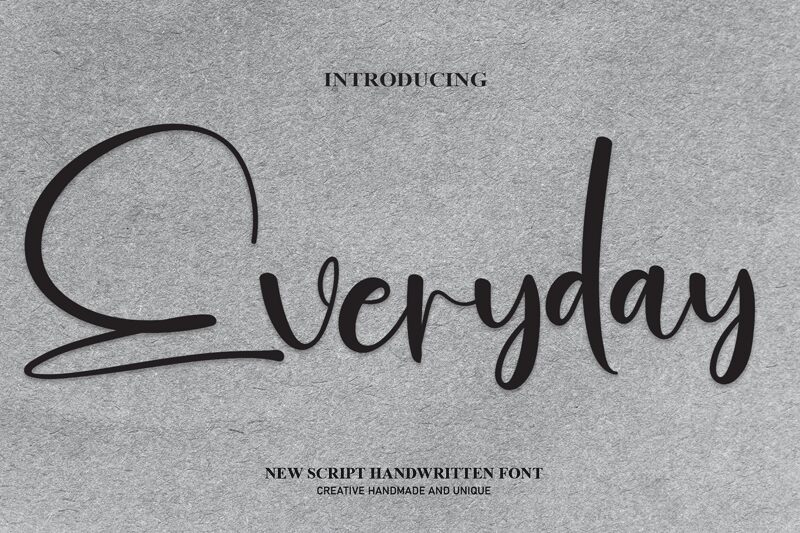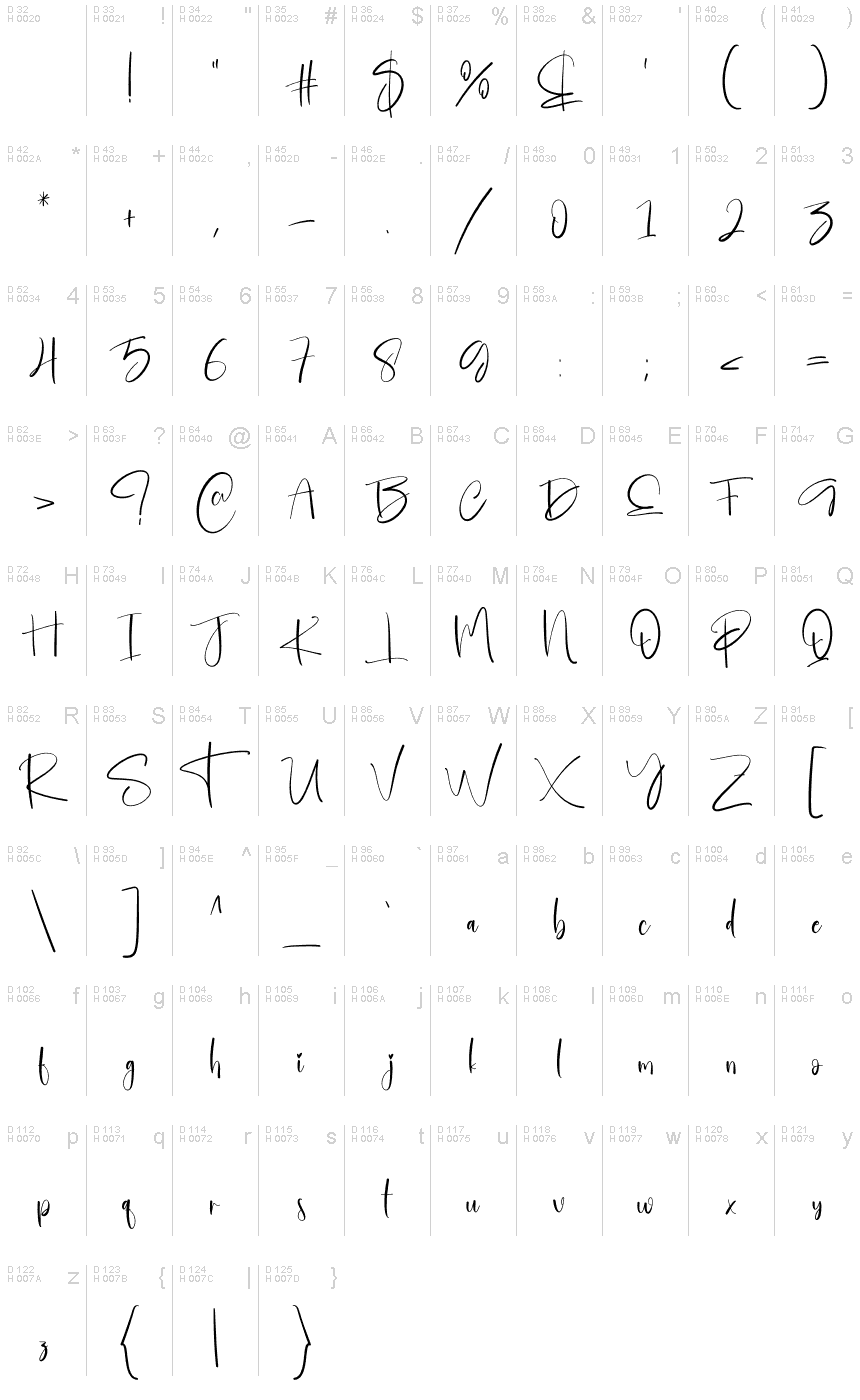
Everyday
Everyday, a charming handwritten font created by Scratchones, brings a touch of warmth and authenticity to your projects. With its semi-light weight, this versatile typeface is suitable for various creative endeavors.
Use it to craft elegant wedding invitations or add a personal touch to your branding materials. Everyday's graceful curves and whimsical letterforms lend themselves perfectly to greeting cards, blog graphics, and social media posts.
Whether you're designing a cookbook or illustrating children's books, this delightful font will surely capture hearts and make your text come alive on the page.